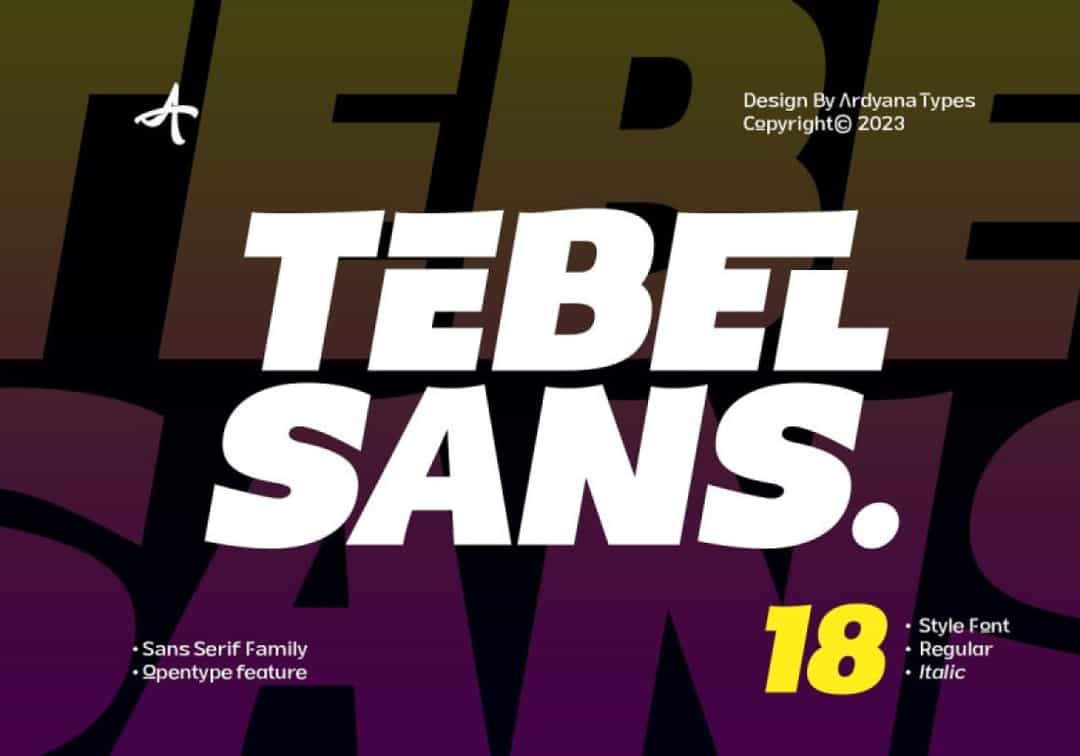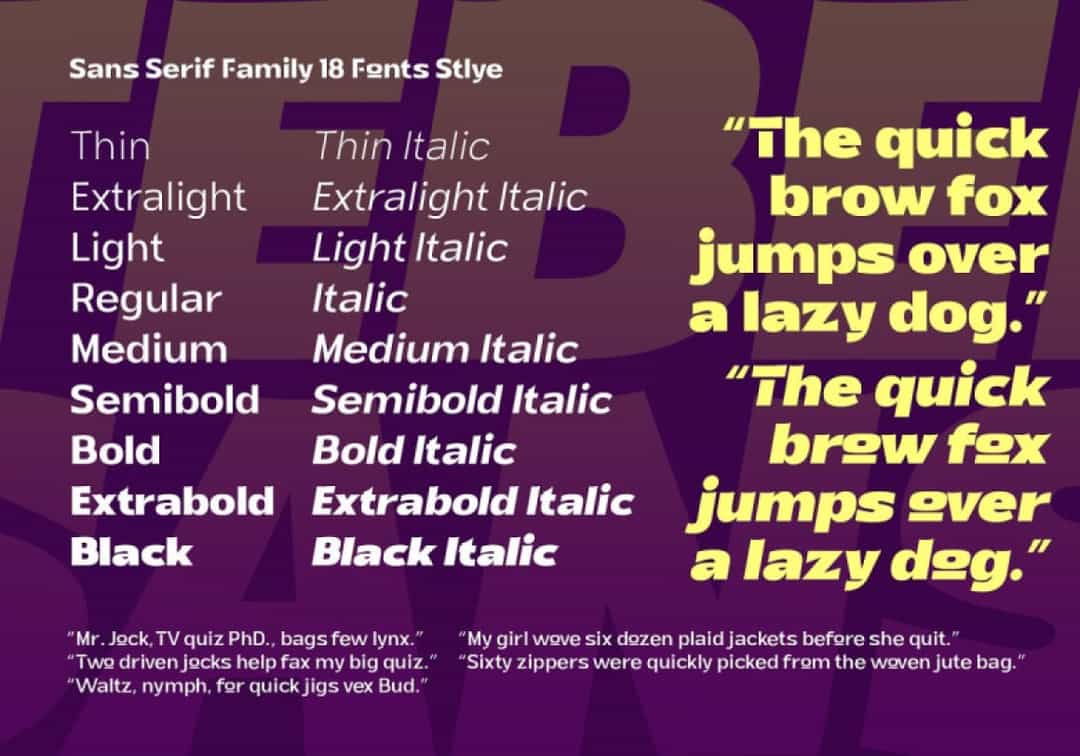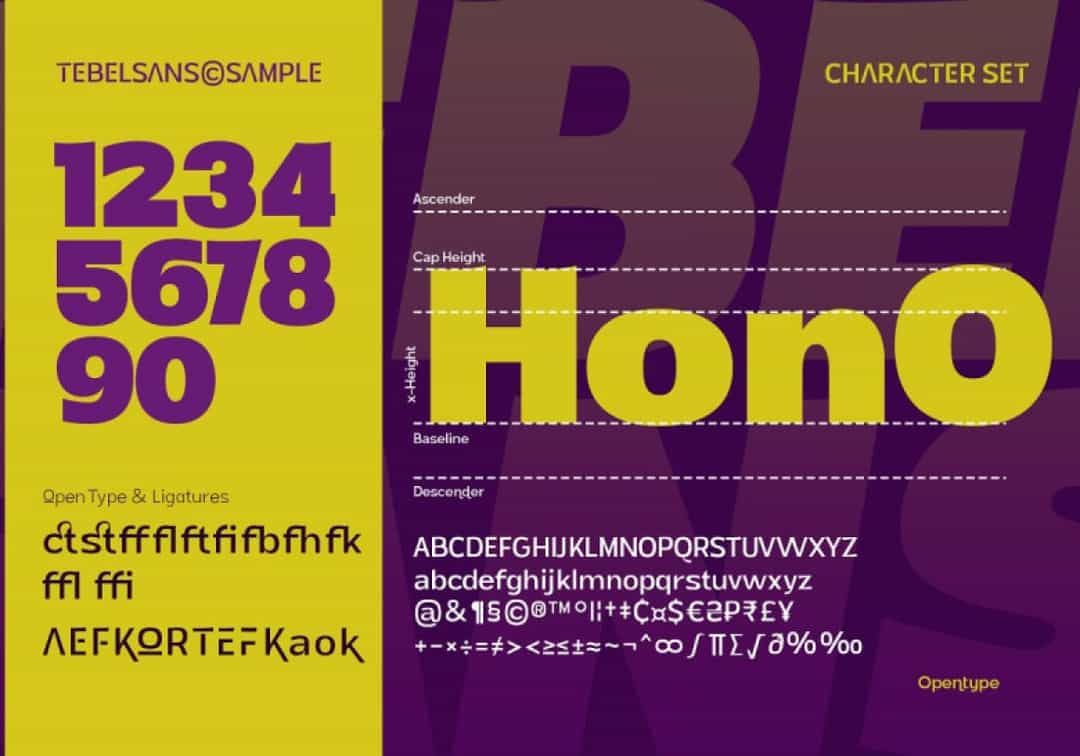
Tebel Sans is an ultra-bold sans serif font designed for use across a range of designs. Offering nine thickness options and both regular and italic types (regular and italic), its unique thickness gives any project the appearance of being bold yet attractive.